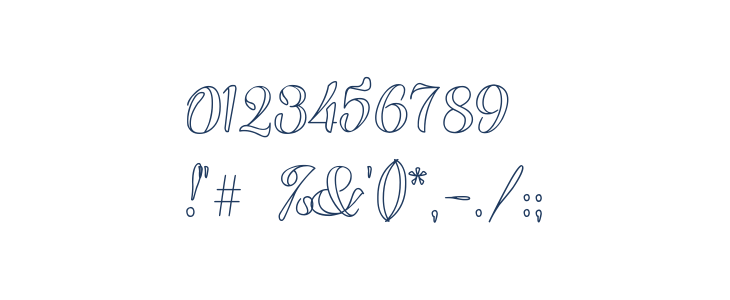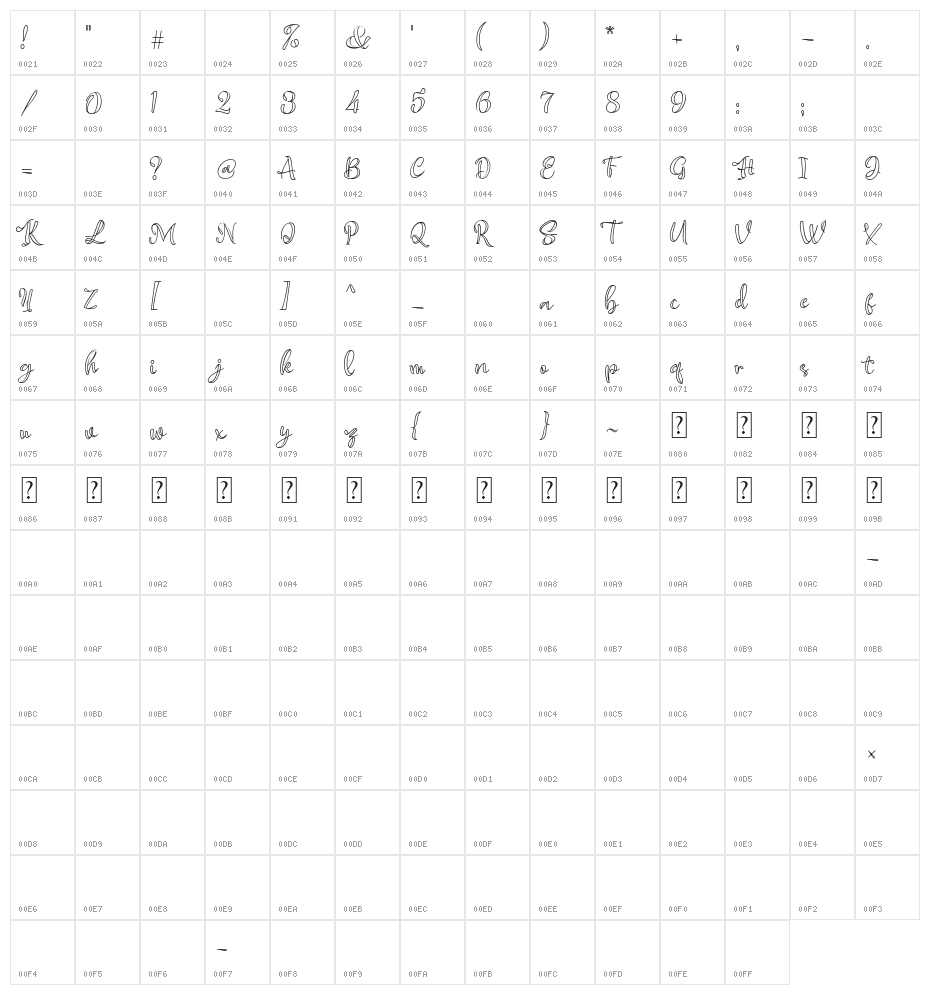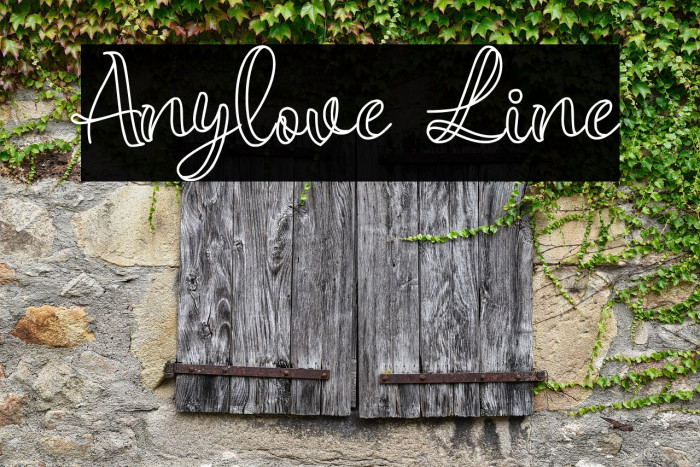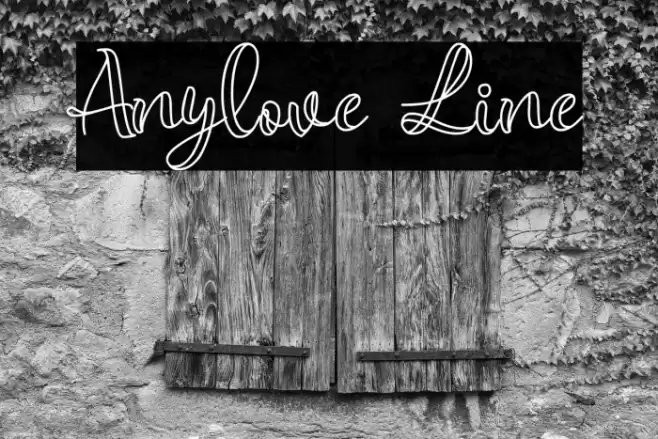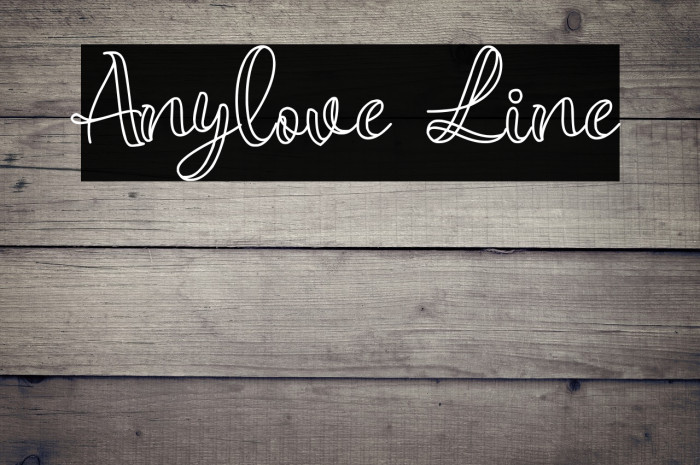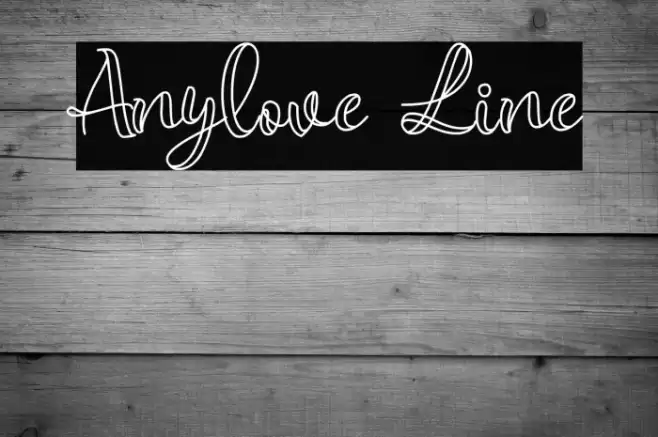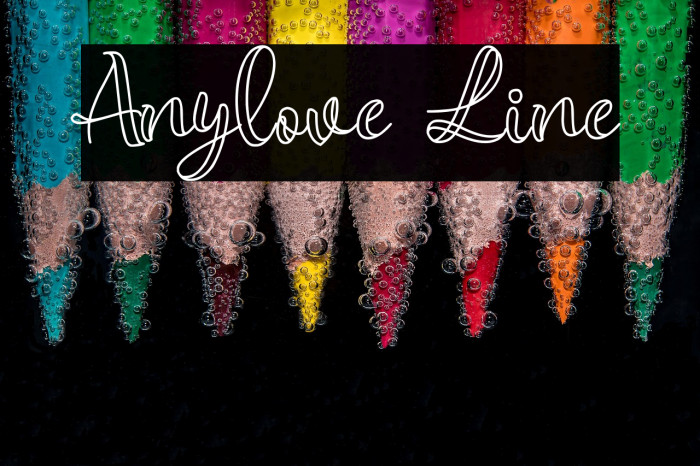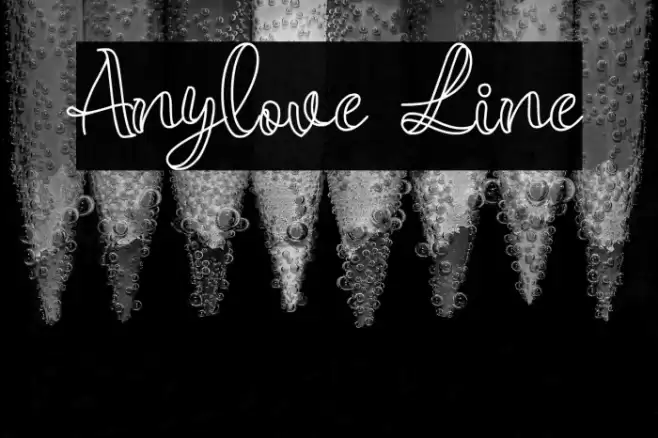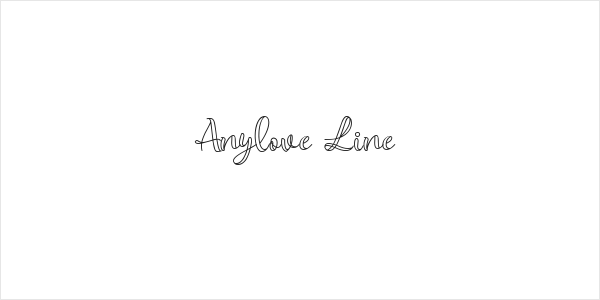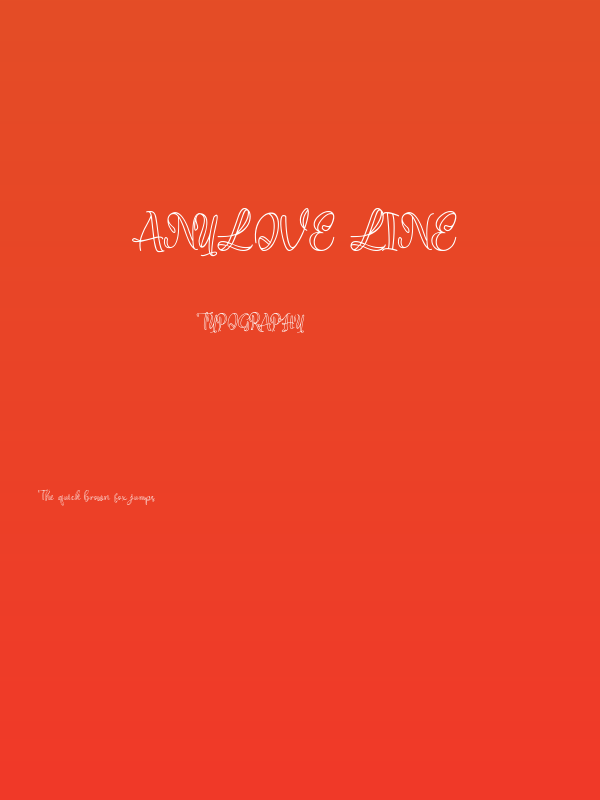
Anylove Line Font
Anylove Line Description
This font features an elegant and flowing script style, characterized by its smooth, continuous lines and graceful curves. The uppercase letters are particularly ornate, with intricate loops and swirls that add a touch of sophistication. The lowercase letters maintain a consistent style, offering a harmonious blend of readability and decorative flair. Numbers and special characters are designed to complement the alphabet, maintaining the same fluid and artistic quality. This font is ideal for projects that require a personal and artistic touch, such as invitations, greeting cards, or branding materials.
| Proposed Projects | Ideal for wedding invitations, greeting cards, branding, and artistic projects. |